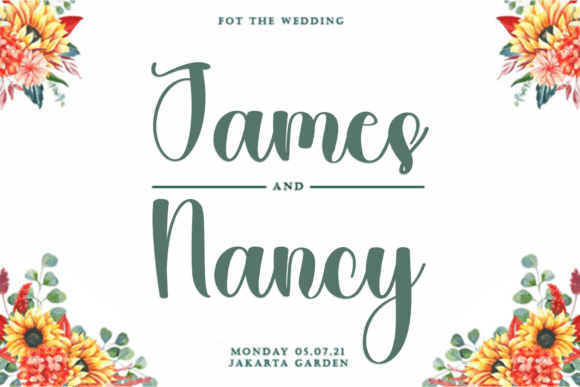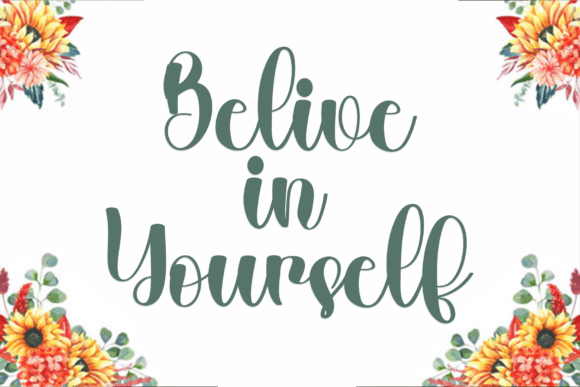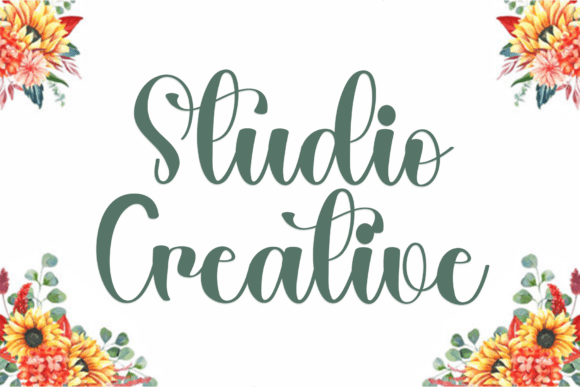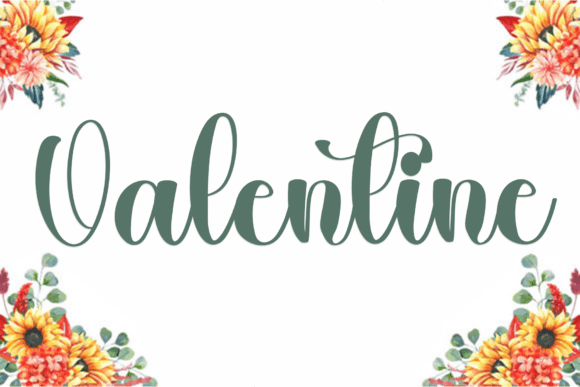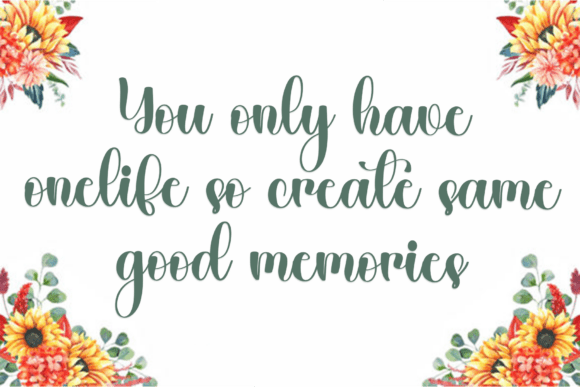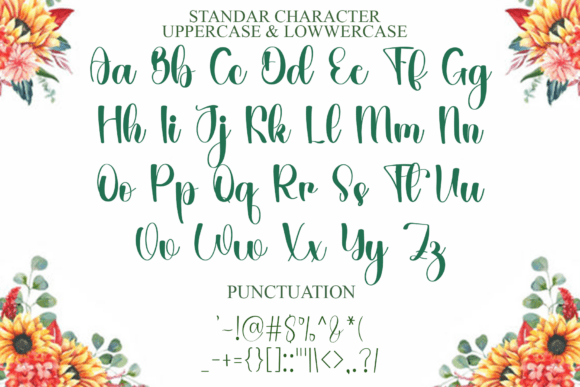
Introduction to December Thebest Font
December TheBest is a casual and creative font that exudes warmth and friendliness.
Key Features of December Thebest Font
Why Choose December Thebest Font?
December Thebest Font offers exceptional quality and versatility, making it a valuable addition to your design toolkit. Whether you’re creating for personal projects or commercial use, December Thebest Font delivers professional results.